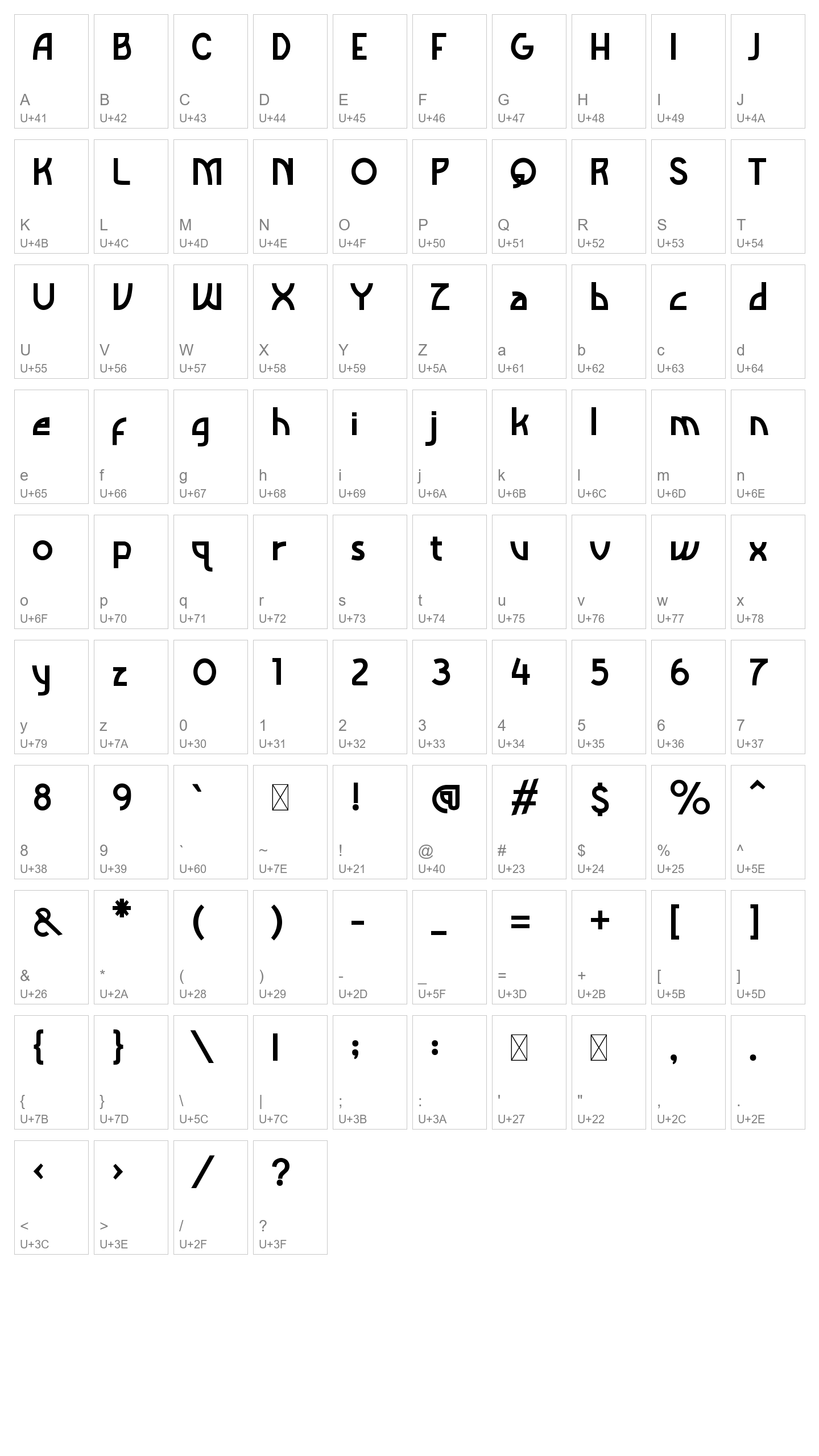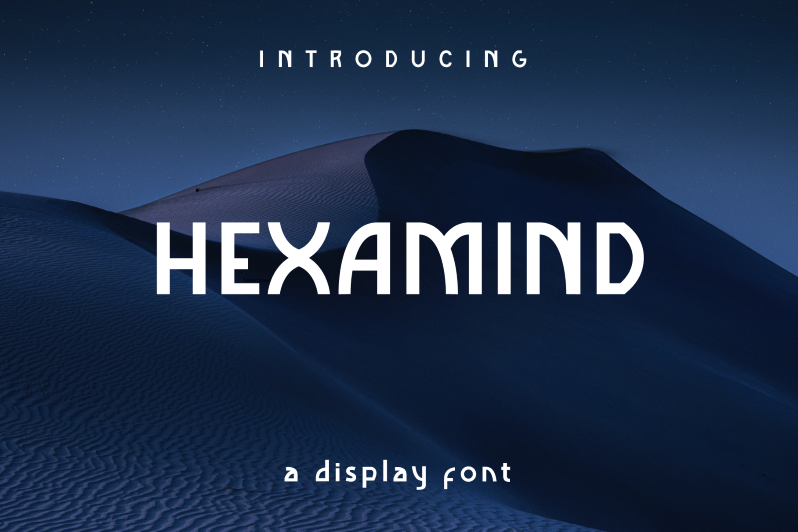
Hexamind
Author: Arliyan Creative
Introducing Hexamind, the bold and modern display font perfect for any professional project. With its unique and timeless style, Hexamind adds a touch of sophistication to any design.